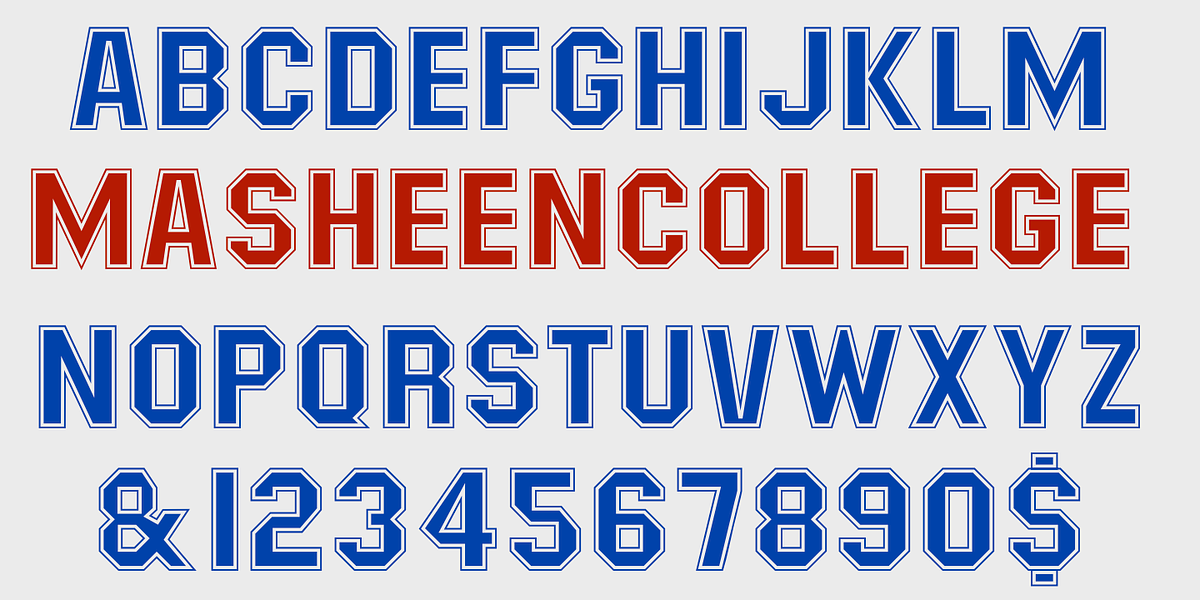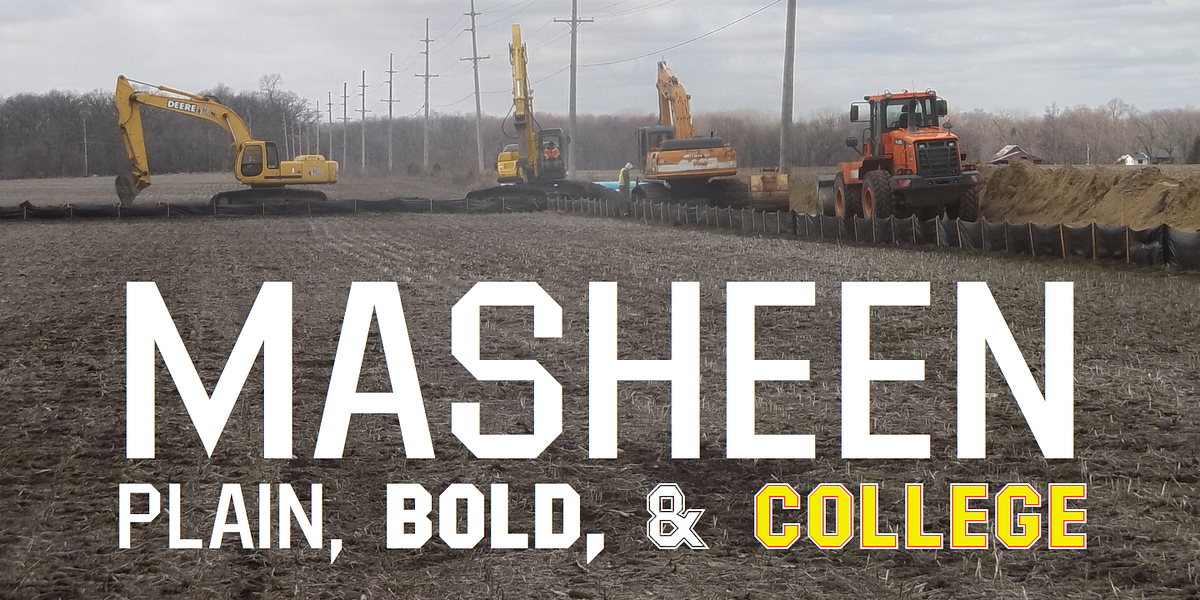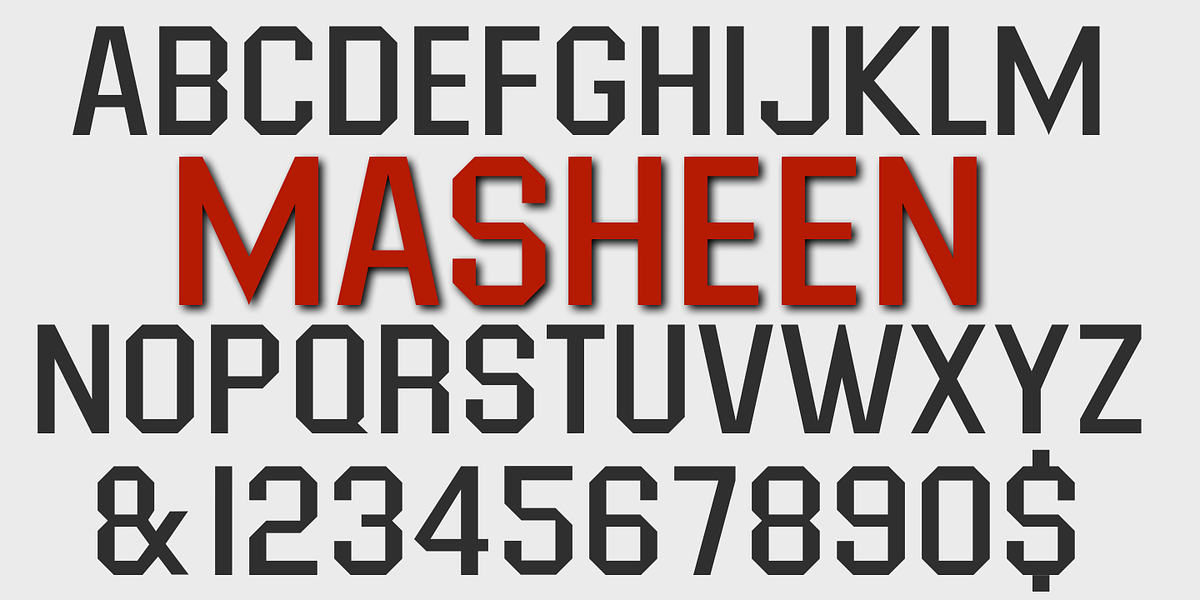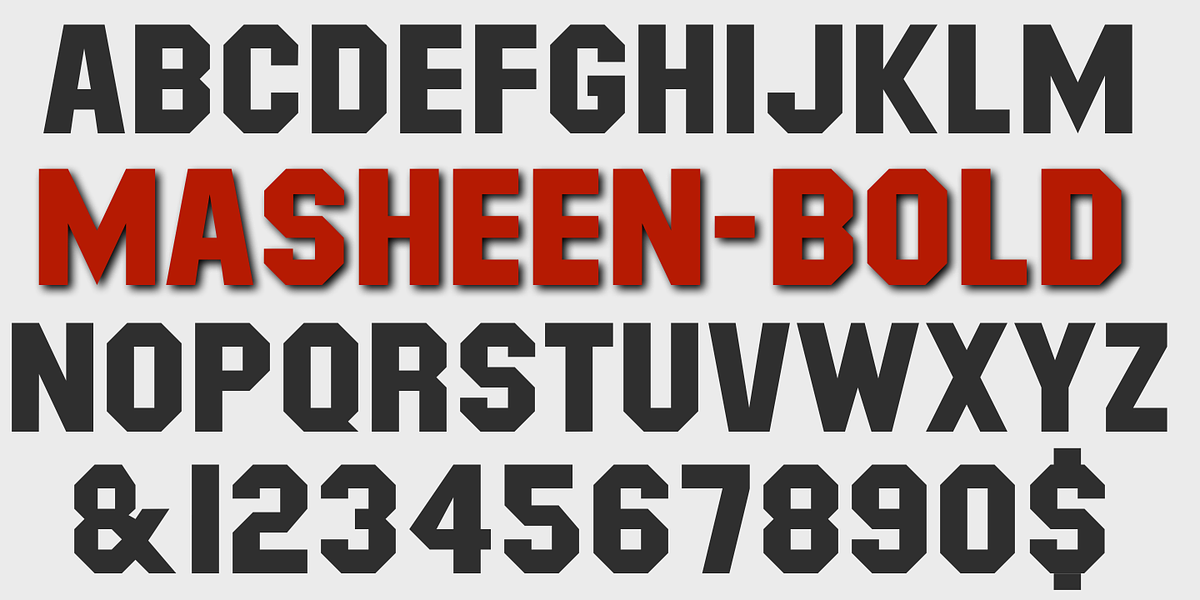
Masheen
This typeface draws inspiration from the popular font Machine, but distinguishes itself with a unique geometric style. It features straight lines paired with octagons instead of traditional circles, creating a bold and modern aesthetic. The all-caps design and bordered letters further enhance its display capabilities, making it suitable for eye-catching headlines and branding.